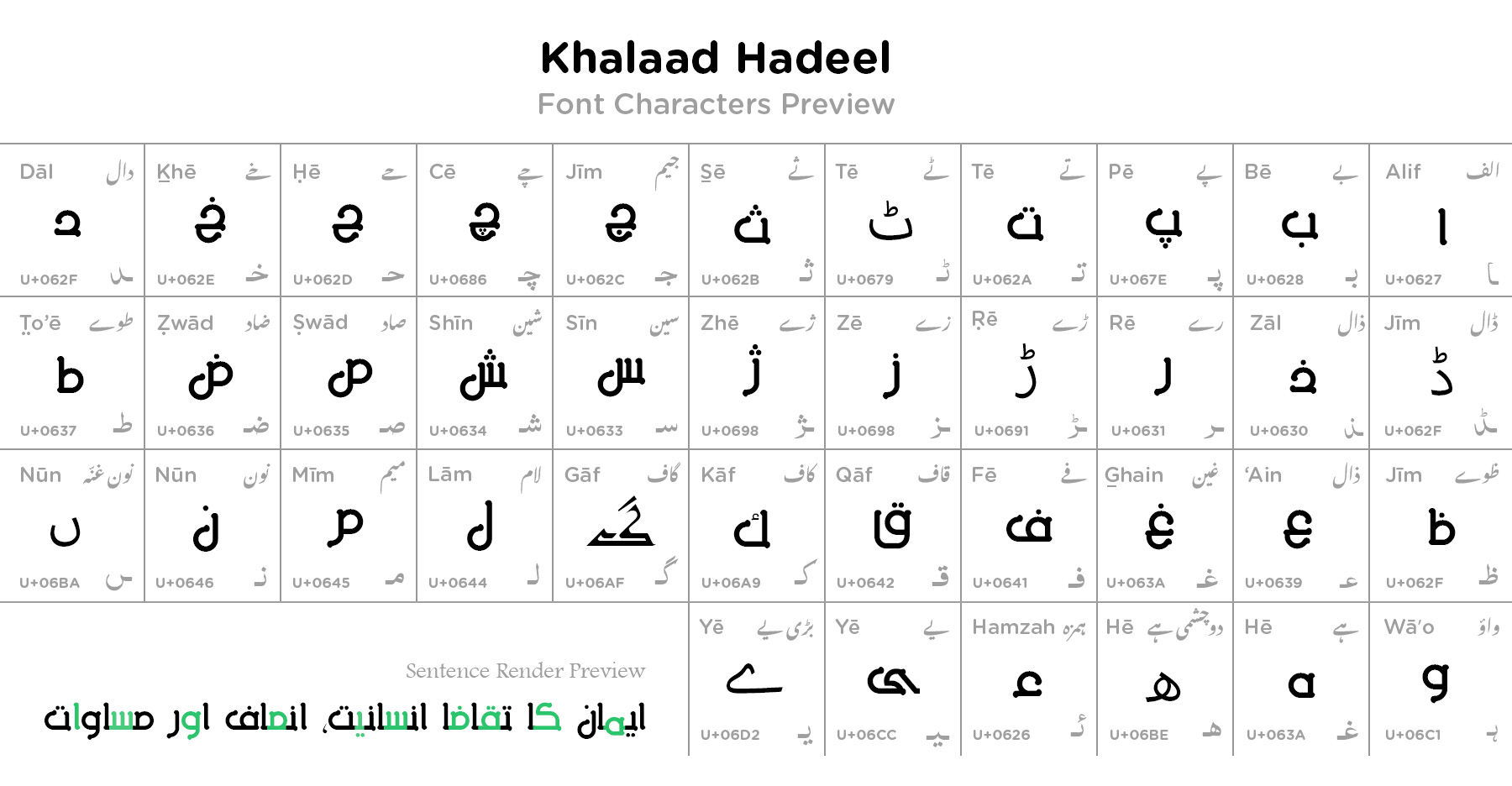
Khalaad Hadeel
Khalaad Hadeel is a modern serif font with a refined appearance. The font avoids any overwhelming decorative elements and keeps the look simple. It is designed by Majid Al-Otaibi by keeping in mind the design needs for both Arabic and Latin character languages. The font offers an extensive set of characters and glyphs comprising 454 and 458, respectively. However, the aesthetics of Arabic and Latin characters are quite different, which is a unique feature of a font. The Arabic part has circular letters with rounded edges, whereas the Latin letters have a sharp appearance with small serifs at the ends for a modern and neat outlook. Arabic characters have solid strokes and consistent thickness, while Latin characters have varying thicknesses with a bit of delicate stroke.
Despite having a diverse nature, it is only available in a single weight, limiting its flexibility. The letters are monospaced, which means they are evenly spaced apart, allowing for easy reading even at smaller sizes. Because of its contrasting design, this typeface works well with all kinds of text. It is suitable for print and digital applications, like long text paragraphs in newspapers, formal documents, presentations, or graphic projects like posts, flyers, and posters. Also, it supports various languages, such as Arabic, Urdu, Latin, and Persian, making it suitable for projects with different languages. The compliance with the latest Unicode blocks like Basic Latin, Arabic, and General Punctuation allows it to be used in projects with modern needs.